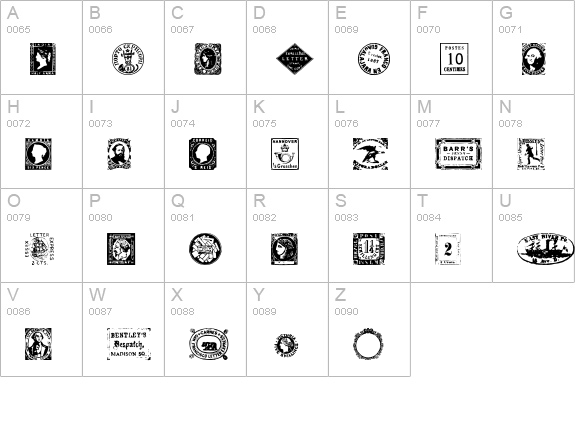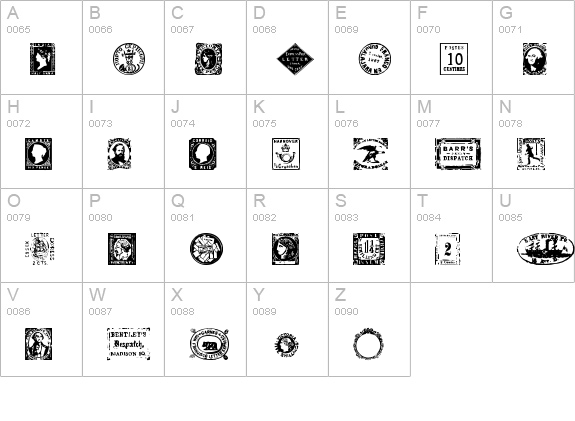
PostageStamps Font Details
PostageStamps font is a unique and charming typeface that captures the nostalgic essence of classic postage stamps. With its vintage flair and intricate detailing, this font is perfect for adding a touch of old-world charm to your designs. The ornate swirls and delicate lines of PostageStamps font evoke a sense of elegance and sophistication, making it ideal for invitations, greeting cards, and other special projects. The best part? PostageStamps font is available for free download at FontsMarket.com. This means you can easily add this stylish font to your collection without any cost. Don't miss out on the opportunity to enhance your designs with the timeless appeal of PostageStamps font. Download it now and start creating beautiful and eye-catching typographic compositions today!